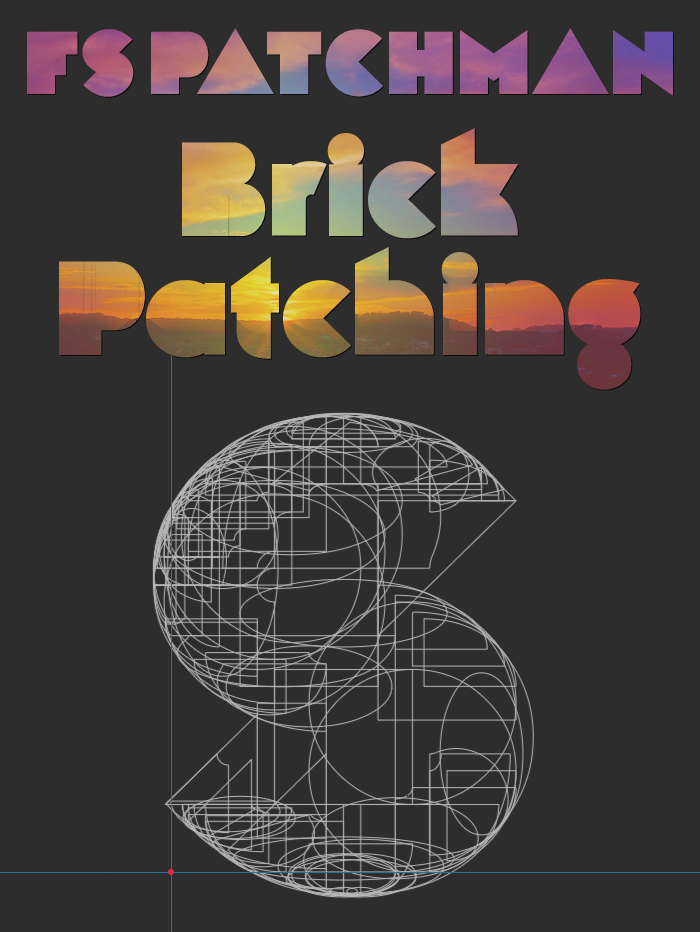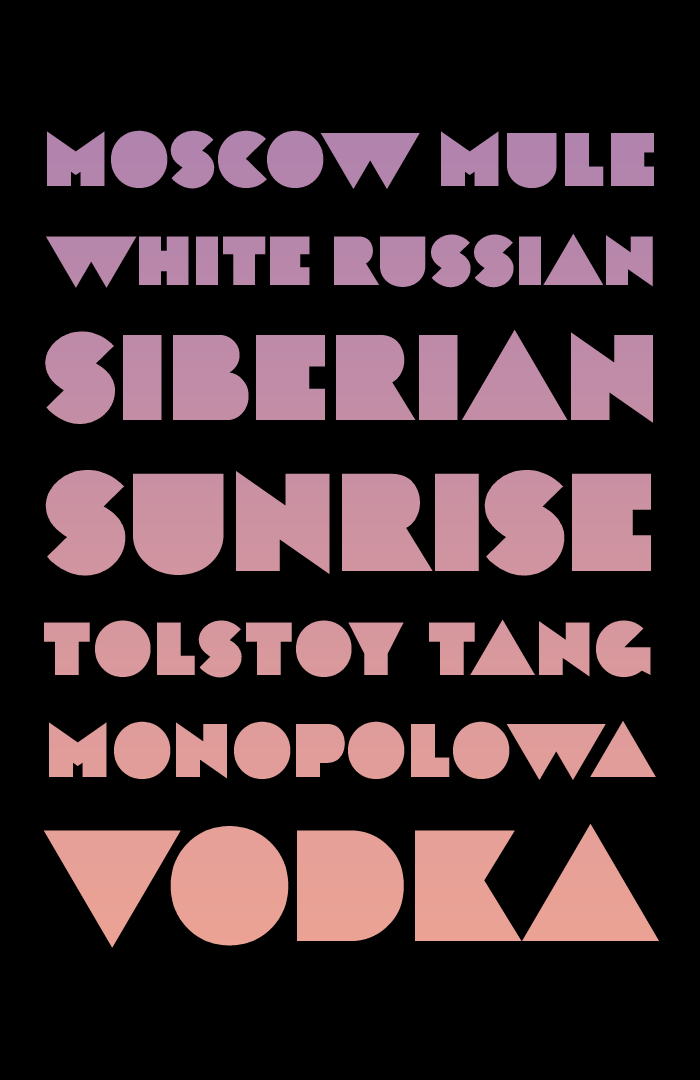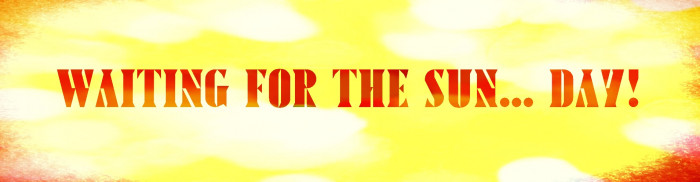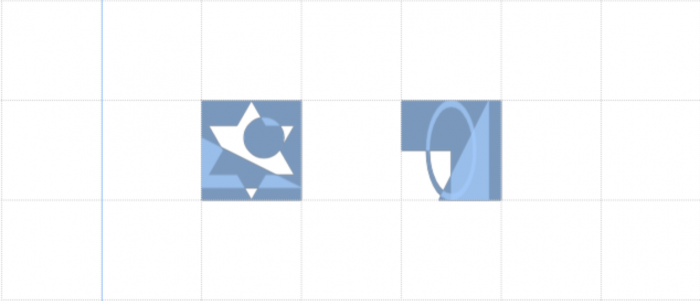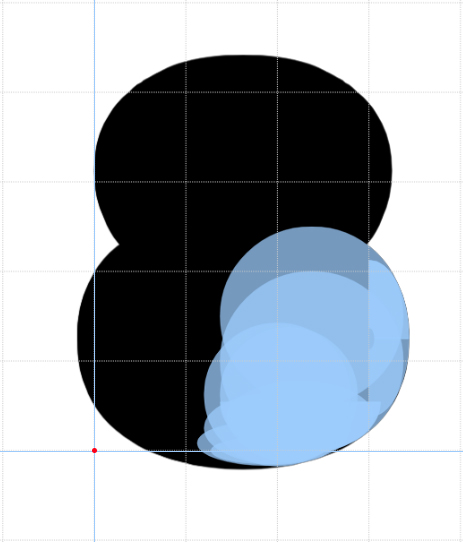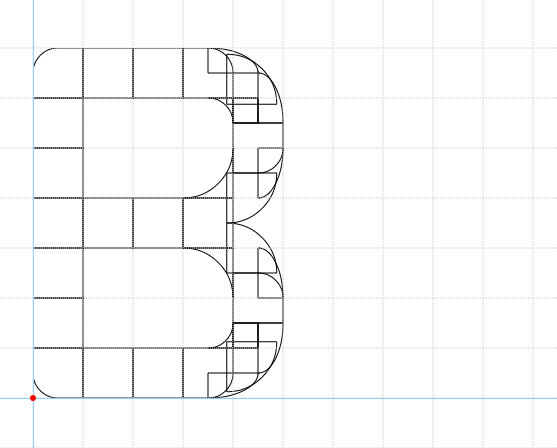
Oh no. Years ago he invented brick stacking, now he broke FontStruct again. Are you even human, sir?
The font itself is absolutely gorgeous. That ultra-minimal, yet unmistakeable "E".
Your flavor of insanity affects taste buds i do not possess. yet.
Excited for Sunday if I can remember what day that is.
Q 2 4 5 6 are awesome. Love it.
The last hours of an aComp are always the best! Astonishing font, master!
Only you have the capacity to make something so complex look so simple.
To see a number of circles with different diameters and with near perfect curves combined in one fontstruction is more than impressive! A beautiful font that breaks away from the grid.
Pretty letters with simple geometric shapes. The "c" is from the Packman game : )
So it seems the era of polygonal glyphs will soon be over, and the time of smooth curves have finally arrived. Beautiful demo pics. I hope you get well, soon. 10/10
@Frodo7 Pac-man*
Did you know that Pac-man was originally called Puck-man, but was changed for preventative neasures from vandals being able to deface the macine to change the P to an F…
that's so beautiful!
That's amazing! That "S" X-ray... wow. Can't wait for you to show us how brick patching works!
Wow! I'm so glad to see this Patching font. You are my FS h4x0r.
I am hoping we will hear more from William soon!
In the meantime, I have made a speculative cloneable fontstruction exemplifying how I believe brick patching might work at a more basic level. I hope you will check it out :-)
as again incredible and very perplexing!
Can you make this clonable so I can see how you patched the bricks?
Reminds me of Steppes TT!
My only suggestion: Could you make the 'W' a little bit narrower? 10/10
The limitations of FontStruct... *whoosh* out the window.
I think one of my fonts uses this same technique, but on a much smaller scale.
But how exactly does this work??
No, seriously, @William Leverette (will.i.ૐ), wake up! I need to know how this works!!!!! What 'special composite' glitches the FontStructor into allowing stacks that respect transformation??? !!! ͮăɡȖ͖ˏɒ̷̃ׯŰ̈ūĵĒȴőƓǐȈĮĖĝ½Ńƙƺǩ̊ũȍǕ¨țÓ̈́ǒɕŞ̿áÀͣȵĆČˠºȗǩʯͯȨˣʥǭŇŨ̫ɔɯū̡̼ȭ¼Şʯ˓̵̧¶̤Ďƹģ̪͋ˮȁɶ˶Ǖ̇ˤ͆ưʌ±ĨŚƭƐ˘̅ąŕɀĖ !!! ??? I want to know You want to know We all WaNT To NoWJ WWWJ äčĜŞĿṳ̀ˇʮɋʧ˳ǁć̶ˈž̭͍̇Т˛ʼʪŌćʷʗ̥ƃǂʃŽˏ̭͒Ŵ˹LjȽ̛É͗ˋʱ˷ʪʍó˄Ɓ̚ʗŎ¢ȸƟ¢̳ͤɅřƉʐųůȅÅėͤ͗ˬ̊ʑʝĻǏɷ͉ͣȘǁ͚̅̈́ʫÈʡÕ̓Ō̯̾°ŝͭƁÛŊ ---
Without further ado, here’s that vaunted Brick Patching secret sauce. I further refined the technique today while attempting to describe the simplest case. The resulting recipe is reduced to what I trust are the fewest steps possible:
1) Take any two bricks that share one available space between them.
2) Select one of the bricks (it can be a stack, patch, etc.).
3) Move the selection into the central space.
4) Select the complimentary brick(s).
@William Leverette (will.i.ૐ) - Aaahhh...  I've certainly encountered the "Undo" glitch over the years, but never realized it could be put to good use!  Thank you for sharing this technique.  :^)